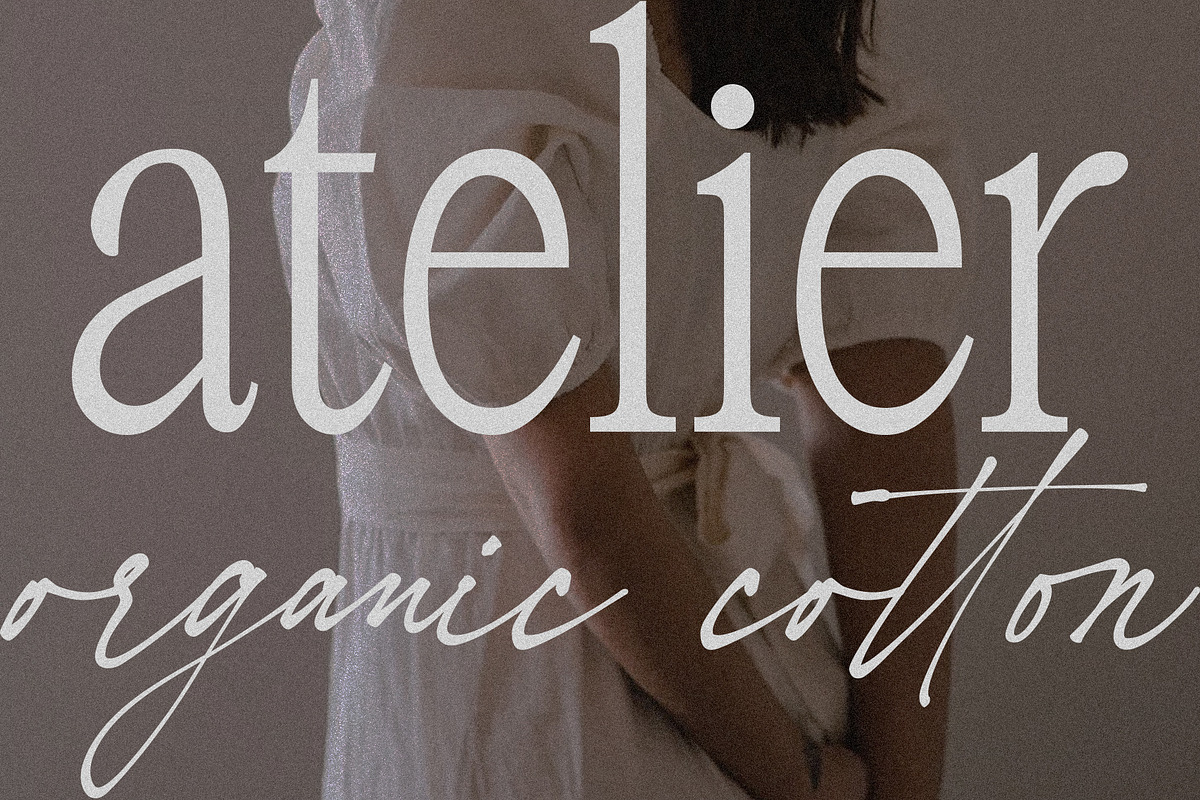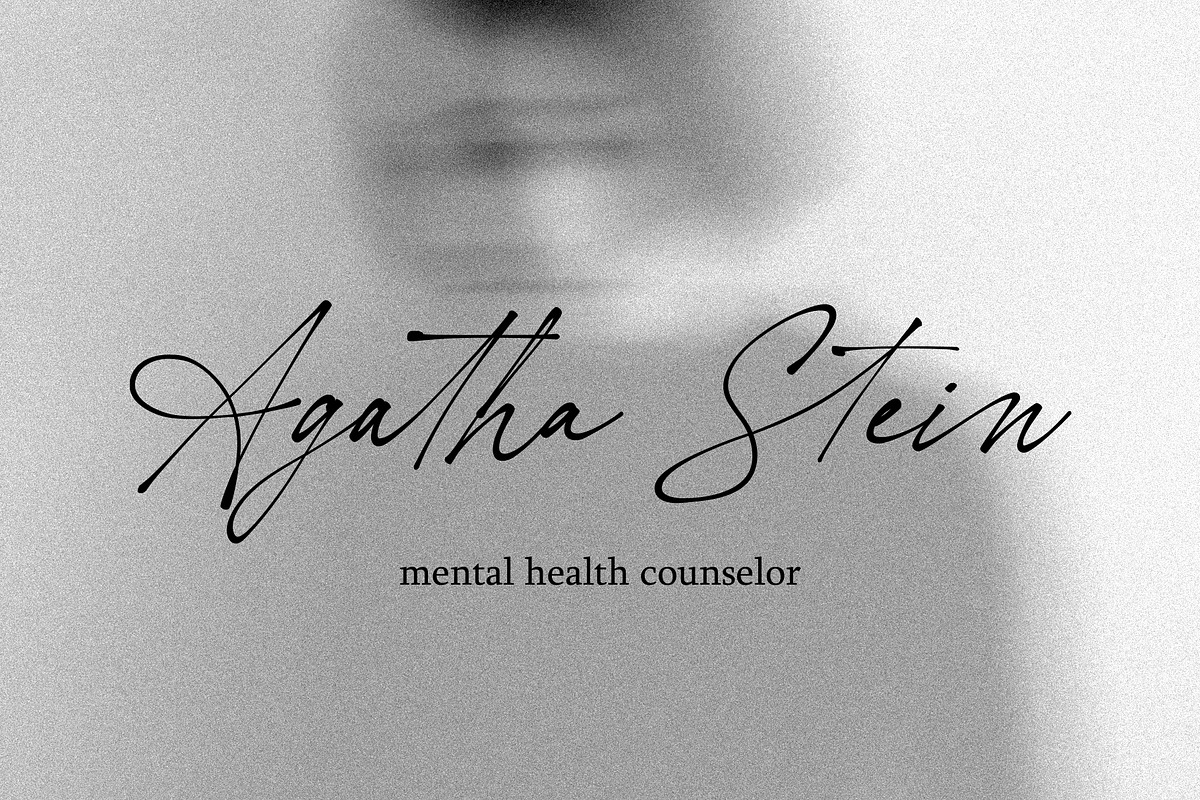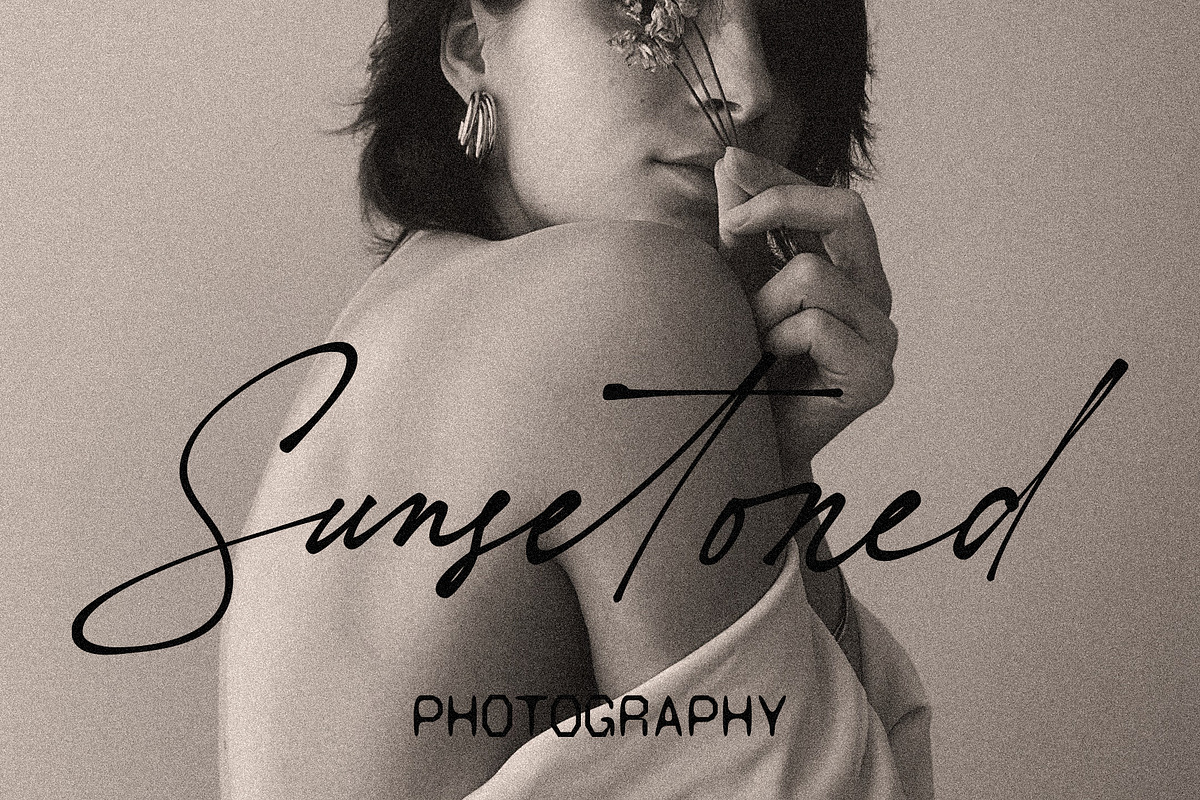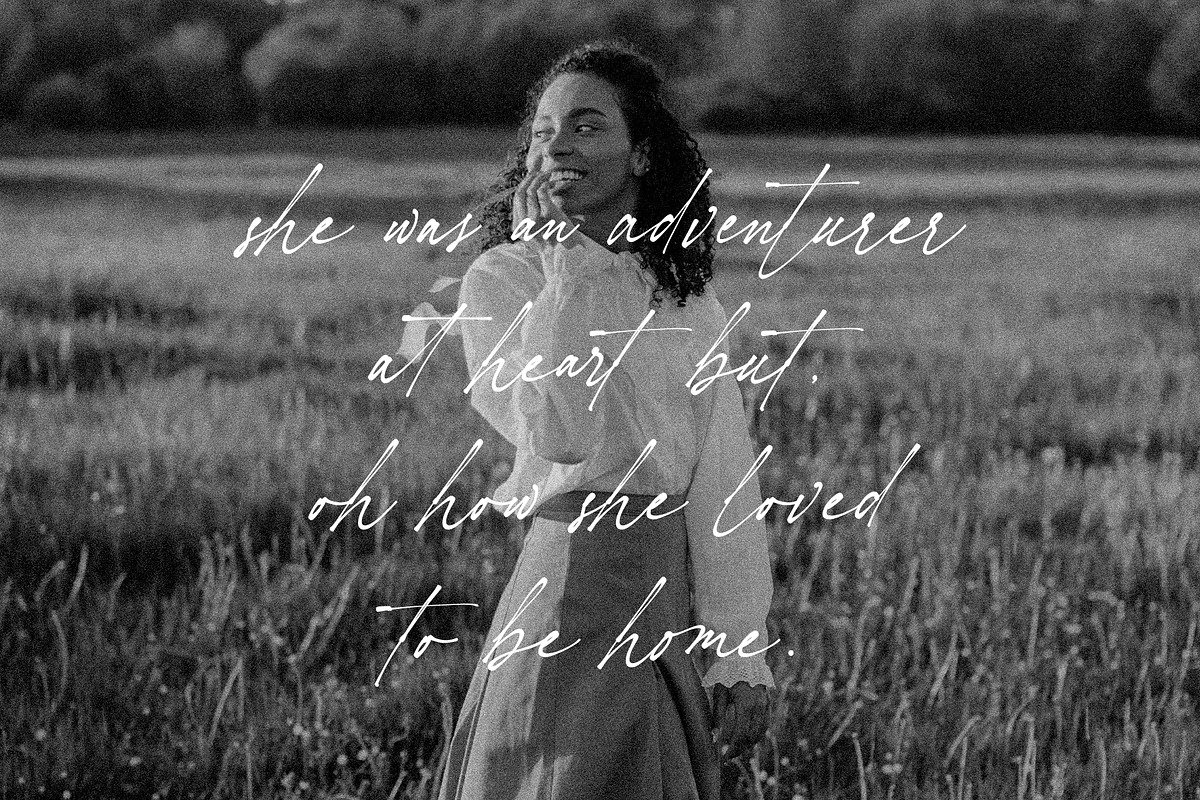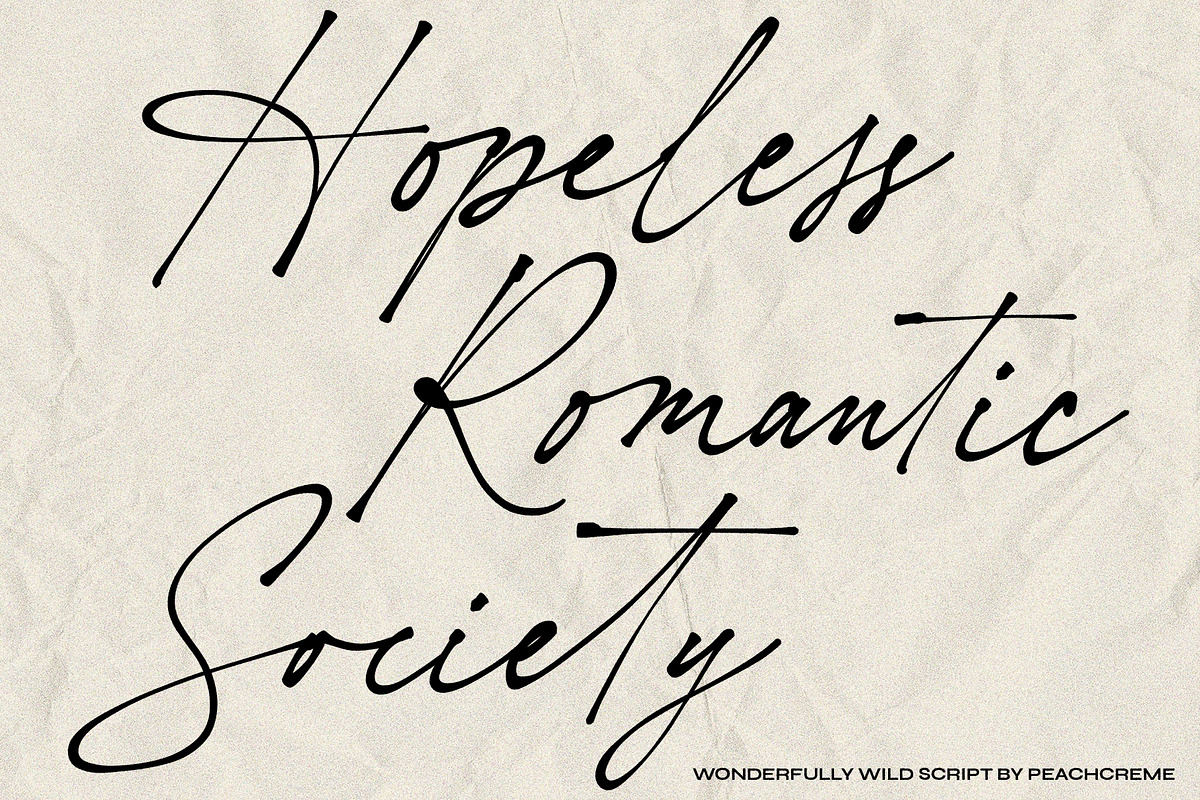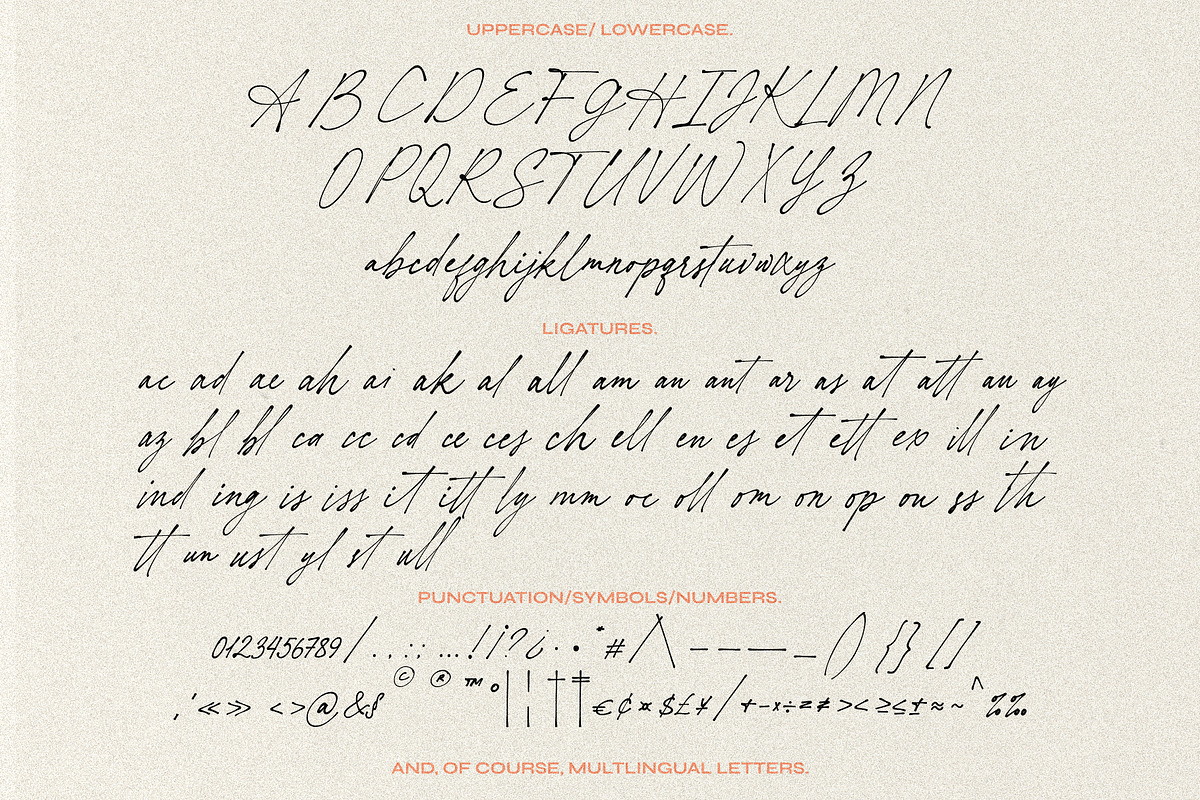
Hopeless Romantic Society // Script
An imperfectly charming handwritten font, "Hopeless Romantic Society", is here to liven up your design works. This carefree ligature-filled handwritten typeface was influenced by writings that were sloppily produced by hand. With these 55 ligatures, your designs will have that extra layer of authenticity. Whether you're looking to create a playful logo or send a handwritten letter, this typeface is the way to go.